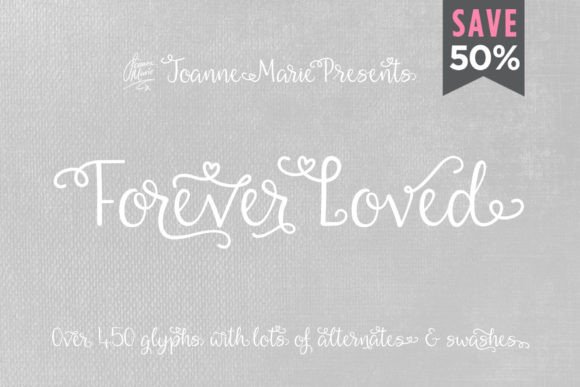
Introducing Forever Loved Font, the ultimate script font that will add charm and personality to any project. Created by the talented joanne.hewitt, this font is a true masterpiece. With its 450+ glyphs and advanced OpenType features, Forever Loved Font is the go-to choice for anyone in need of a versatile and captivating typeface.
Whether you're designing wedding stationery, planning an engagement announcement, or working on a project that revolves around love and family, Forever Loved Font is the perfect fit. Its graceful strokes and elegant curves will bring a touch of romance and sophistication to your designs.
But don't be fooled by its delicate appearance. Forever Loved Font is not limited to just love-related themes. It is a font that knows no boundaries. Let your creativity run wild as you use it for logos, tattoos, and even mouthwatering food and drink designs. The possibilities are truly endless!
One of the standout features of Forever Loved Font is its extensive set of alternates. With two sets of uppercase alternates, you have the freedom to experiment and create unique variations of your text. And if you're looking to add a touch of flair, the swashes and ligatures will do the trick, elevating your designs to a whole new level.
Forever Loved Font also includes terminal forms in lowercase, adding a touch of authenticity to your handwritten projects. And with its European language support, you can easily cater to an international audience.
But what truly sets Forever Loved Font apart is its ability to evoke emotions. Its handcrafted feel and organic flow will immediately resonate with your audience, captivating their attention and leaving a lasting impression. It's the font that tells a story, making it the perfect choice for anyone looking to create a meaningful connection with their viewers.